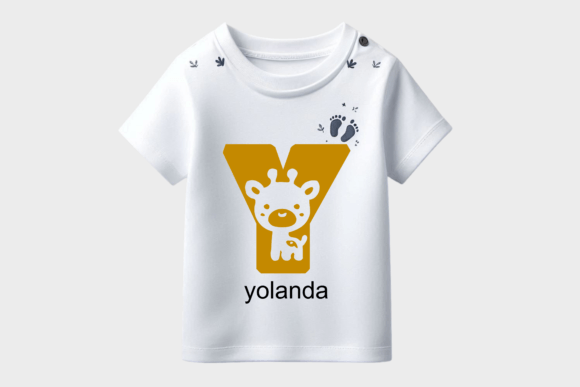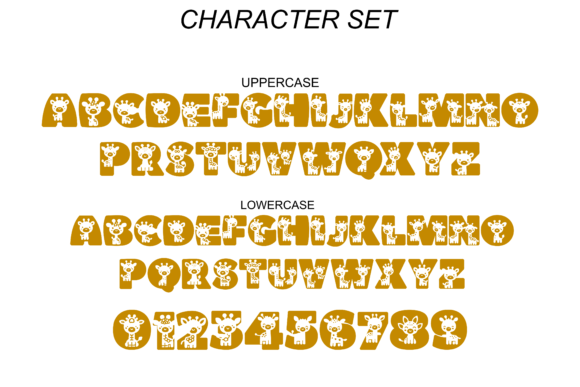
The Giraffe Font: A Typographic Marvel that Captivates
Do you remember that moment when a beautiful font choice transformed your design from good to great? For many designers, it’s a moment of pure joy – a spark that ignites creativity and takes their project to new heights. This is exactly what the Giraffe Font is designed to do: elevate your designs with an irresistible charm that leaves a lasting impression.
The Giraffe Font is a unique typographic masterpiece that fuses sophistication with curiosity, making it an invaluable tool for designers. Its intricate design and dynamic fervor are sure to captivate your audience, setting your work apart from the ordinary. Whether you’re a seasoned pro or a rising star, the Giraffe Font is a valuable addition to your design arsenal.
Giraffe Font Key Features
- Font Family: Giraffe Font is a unique, hand-drawn sans-serif font.
- Unique Characteristics: Features a distinctive, playful feel with exaggerated letterforms, making it perfect for creative and attention-grabbing designs.
Giraffe Font Review
Giraffe Font is an interesting typeface that aims to bring a touch of whimsy to your design projects. Here’s what I think works well: ✨ The font’s unique, hand-drawn feel is certainly eye-catching and can add a playful touch to your designs. ✨ The bold weight is particularly effective at making a statement, and ✨ the font’s versatility allows it to work well in both digital and print contexts.
However, I do have a few concerns: ⚠️ The font’s irregularities can sometimes make it difficult to read, especially in smaller sizes. ⚠️ The font family is relatively small, which may limit its usability in certain situations. ⚠️ Additionally, the font’s style may not be to everyone’s taste, and it’s not ideal for projects that require a more formal or professional tone.
Overall, I think Giraffe Font is a fun and creative typeface that can add a unique touch to your designs. However, it’s essential to consider its limitations and ensure it aligns with your project’s needs and tone.
Design Considerations
- Use in digital contexts where a playful, hand-drawn feel is desired.
- Avoid using in situations where high readability is crucial.
Use Giraffe Font for playful and whimsical designs, such as children’s books, party invitations, and social media graphics.
Experiment with different font sizes and styles to create a unique and eye-catching look.
Combine Giraffe Font with other playful fonts or graphics to create a fun and engaging design.